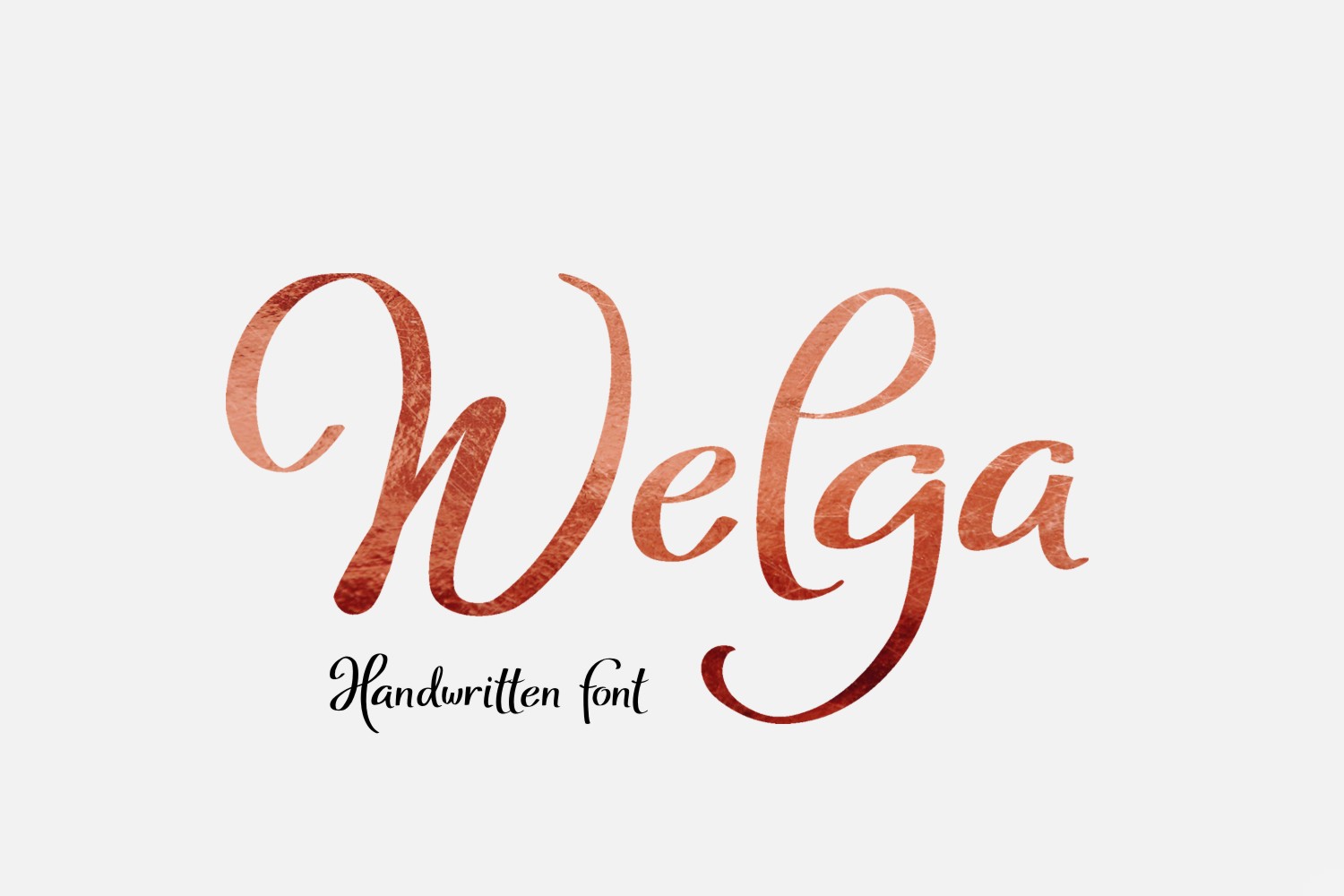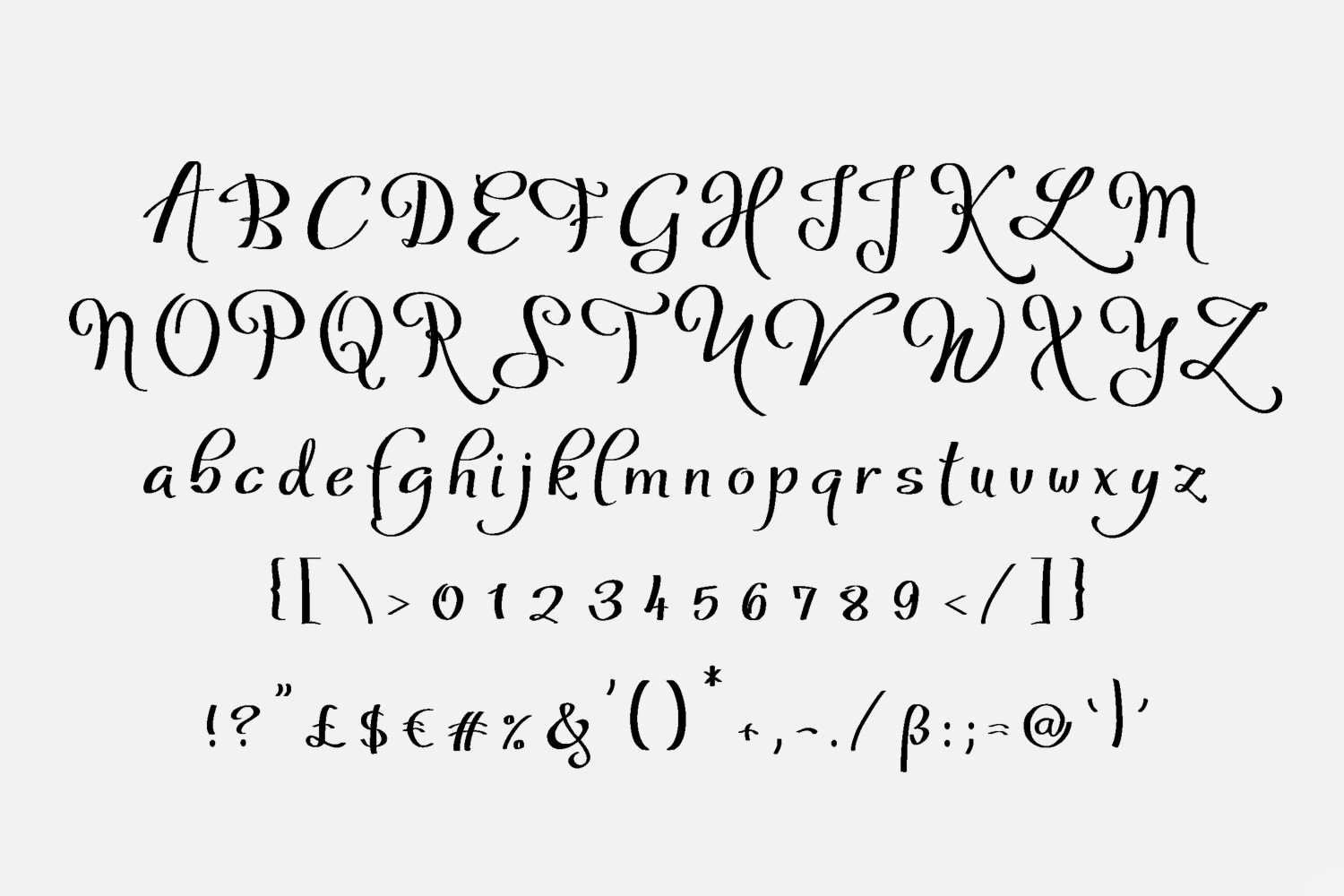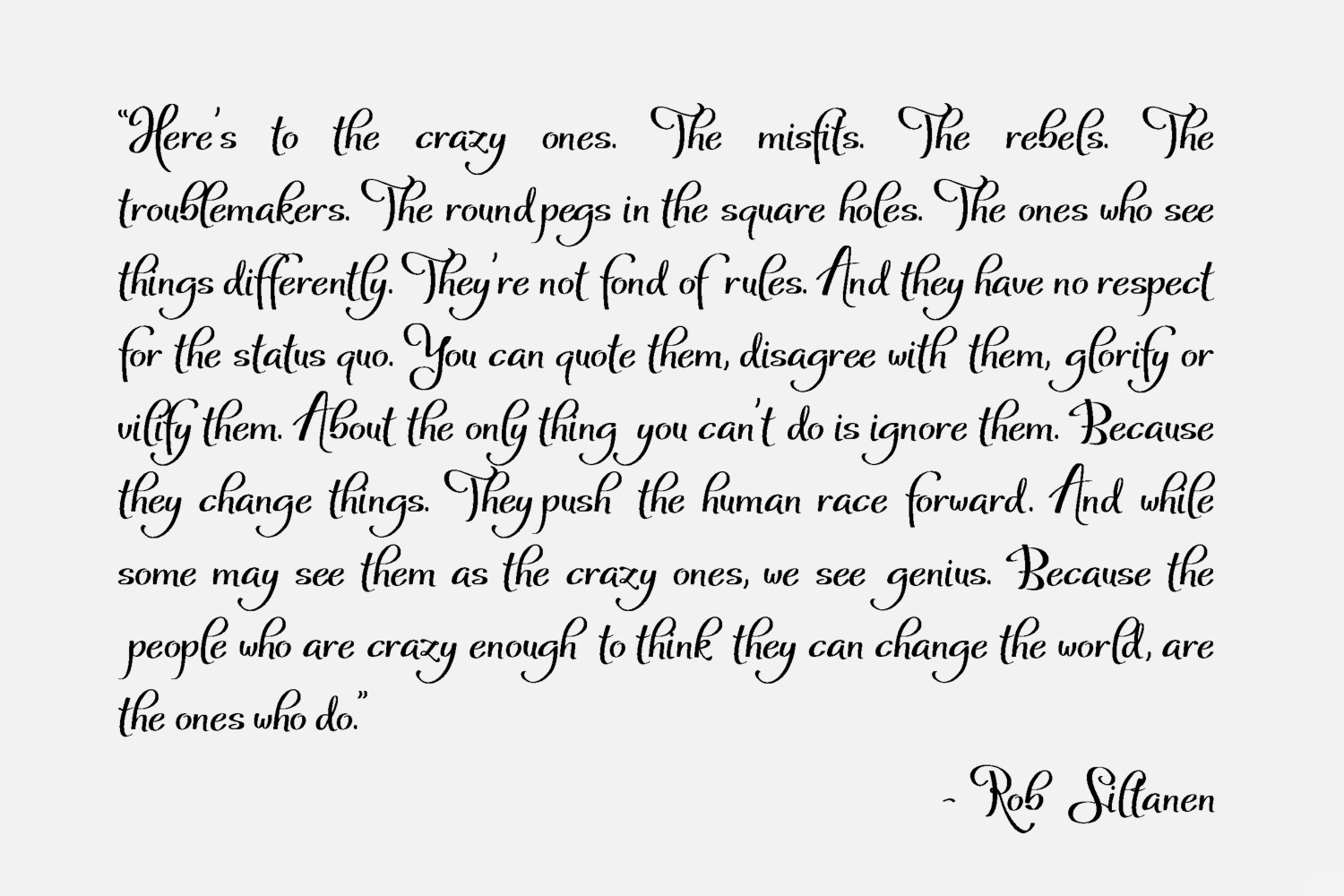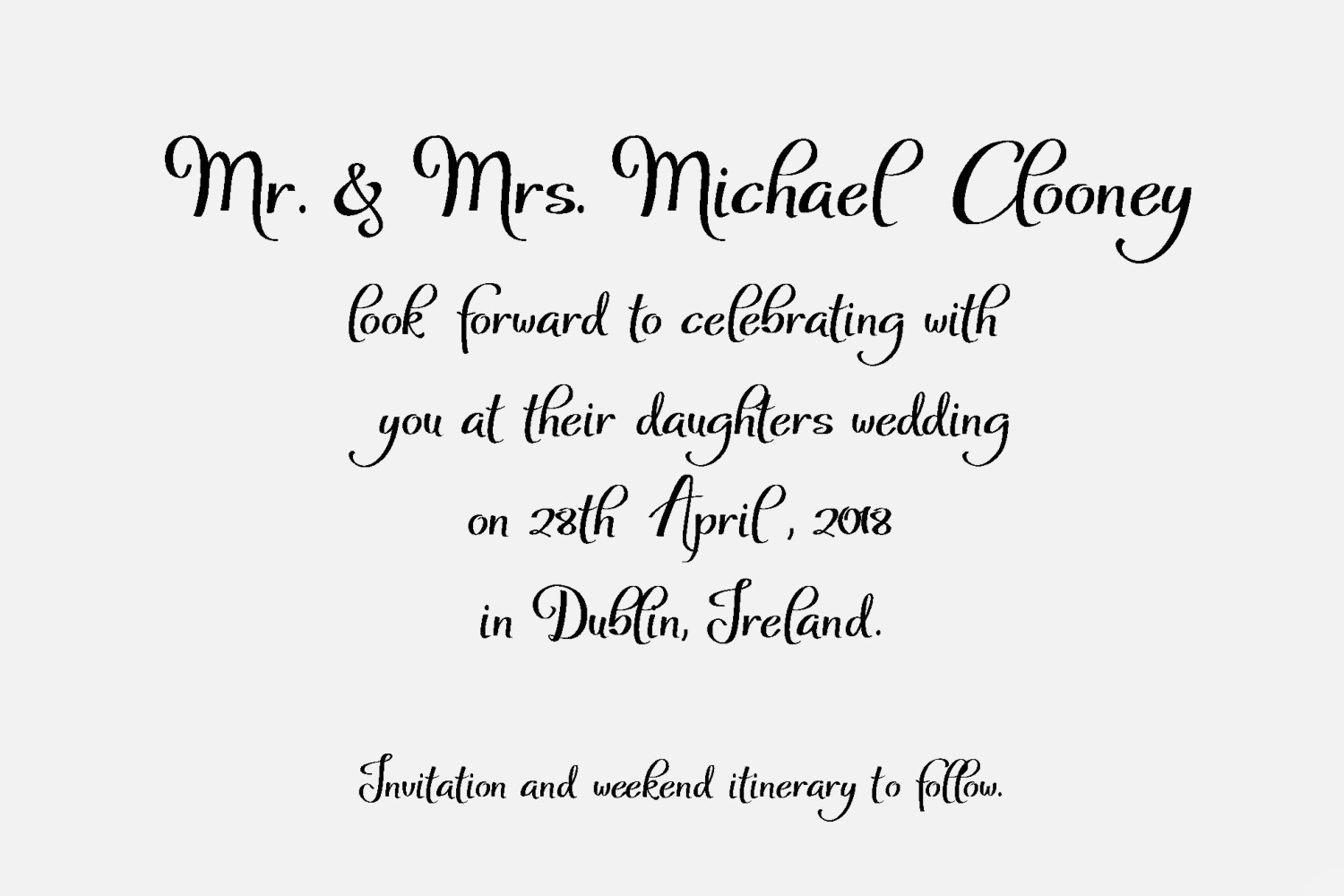
Welga Font
About Welga Font
Welga is a sweet and well-crafted script, handwritten with love and careful measure. Welga is beautiful and legible, making it perfectly suited for a wide range of designs.